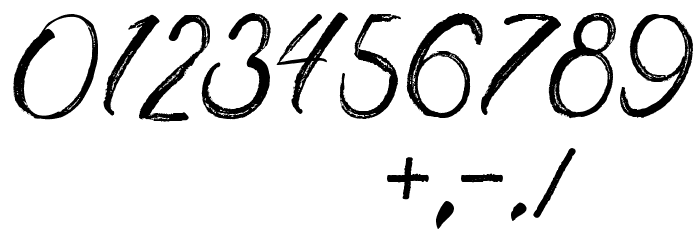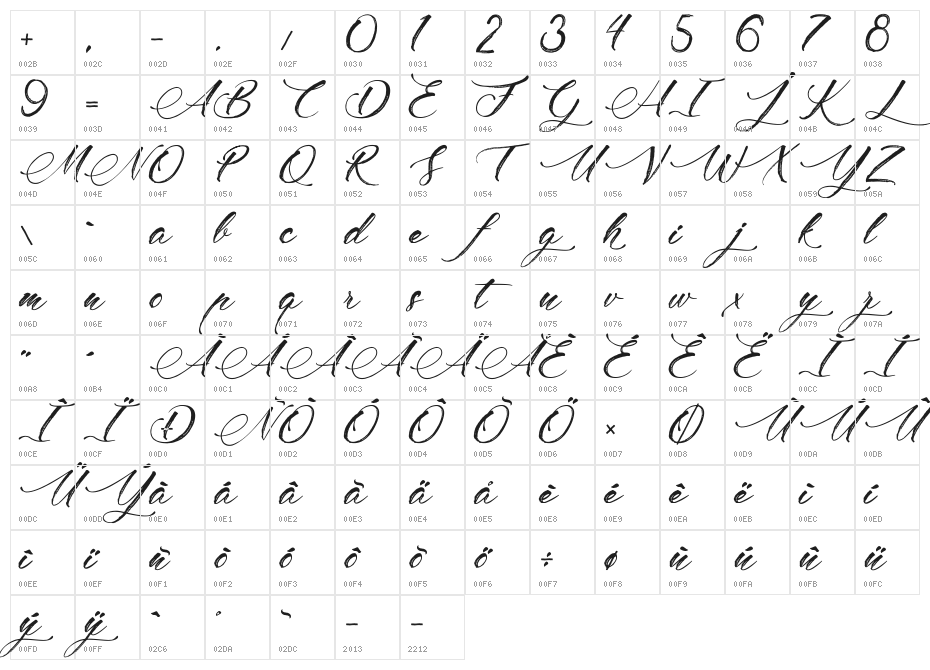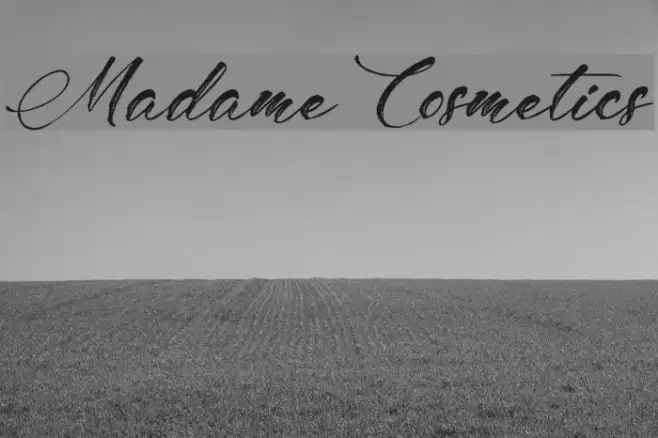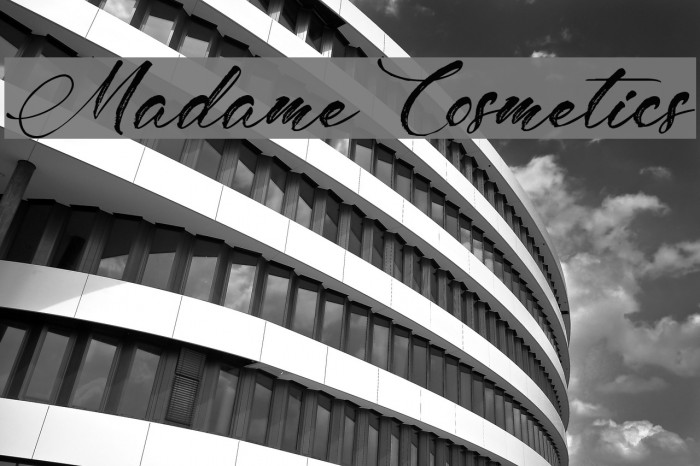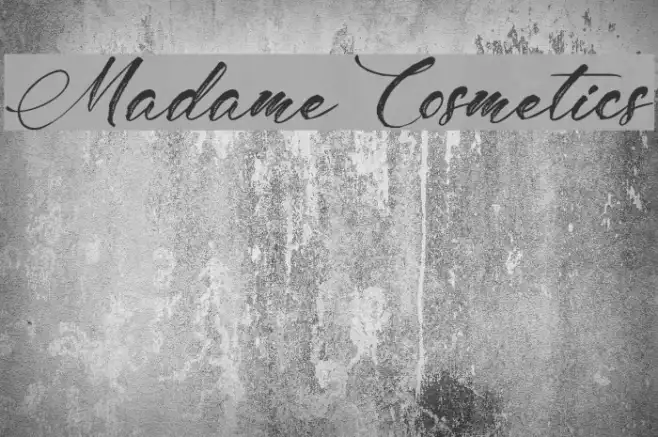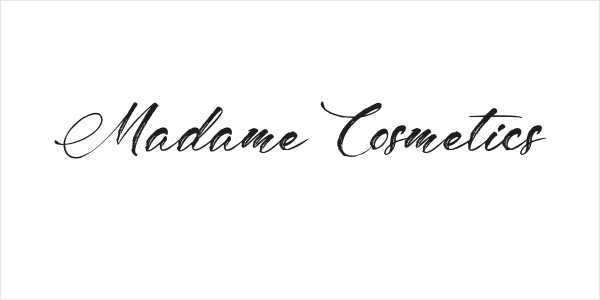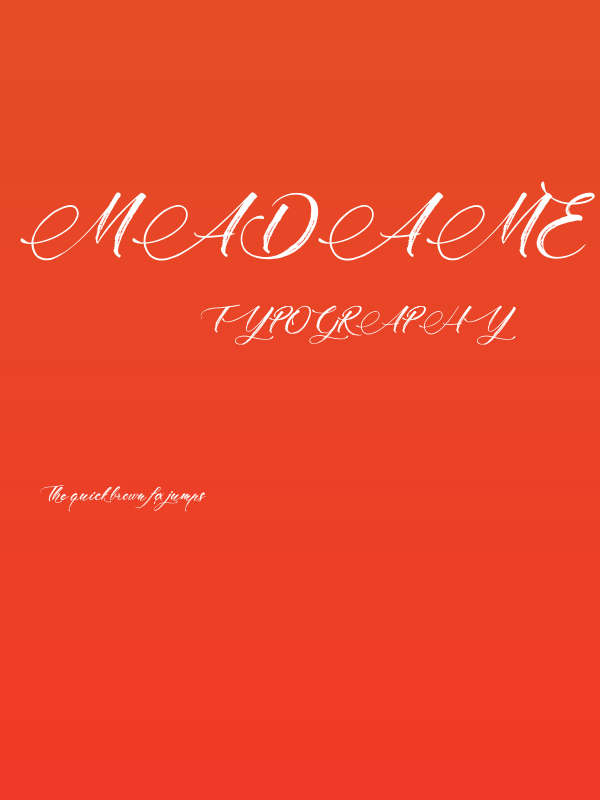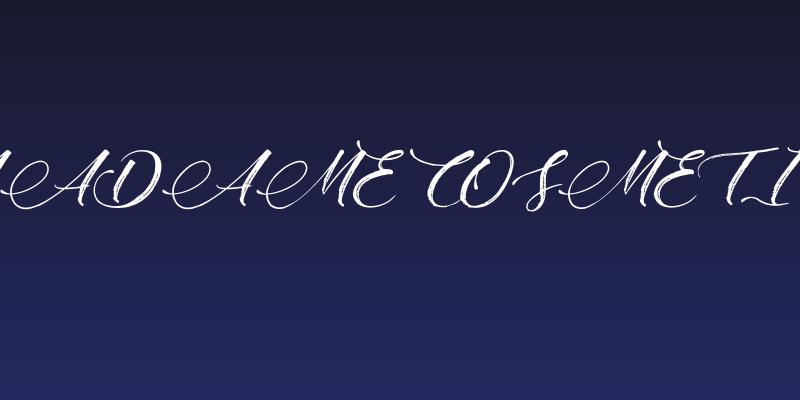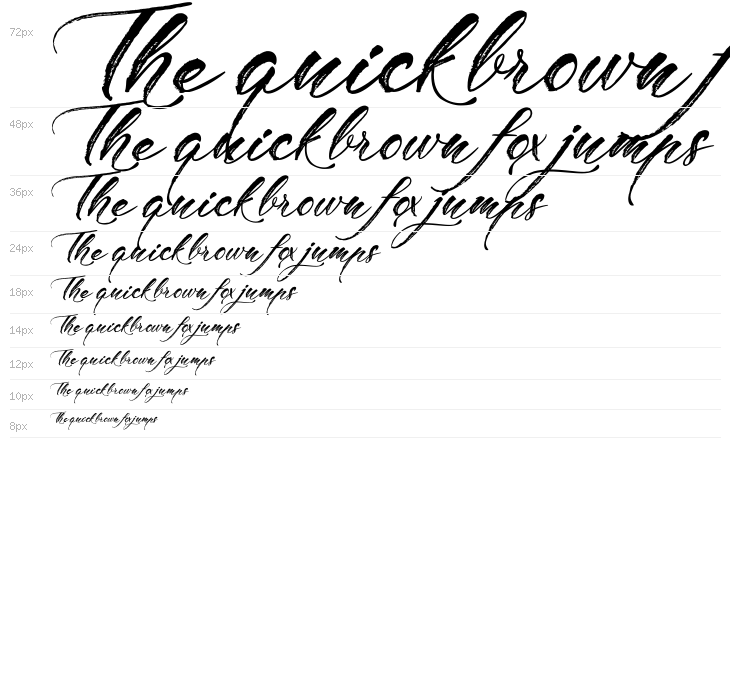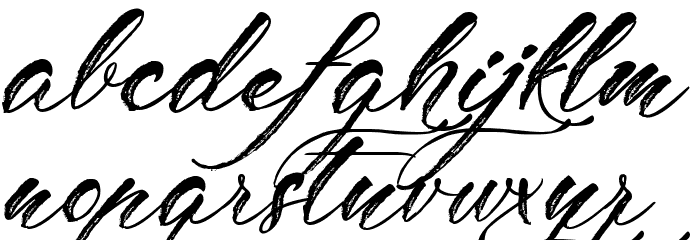
Madame Cosmetics Font
Madame Cosmetics Description
This elegant script font exudes a sense of sophistication and fluidity, characterized by its graceful, flowing strokes and delicate curves. The uppercase letters are slightly more restrained, maintaining a classic elegance, while the lowercase letters exhibit a more expressive and dynamic flair. The numerals and special characters are crafted with the same attention to detail, ensuring a cohesive look throughout. The font's overall appearance is reminiscent of traditional calligraphy, making it ideal for projects that require a touch of refinement and artistry.